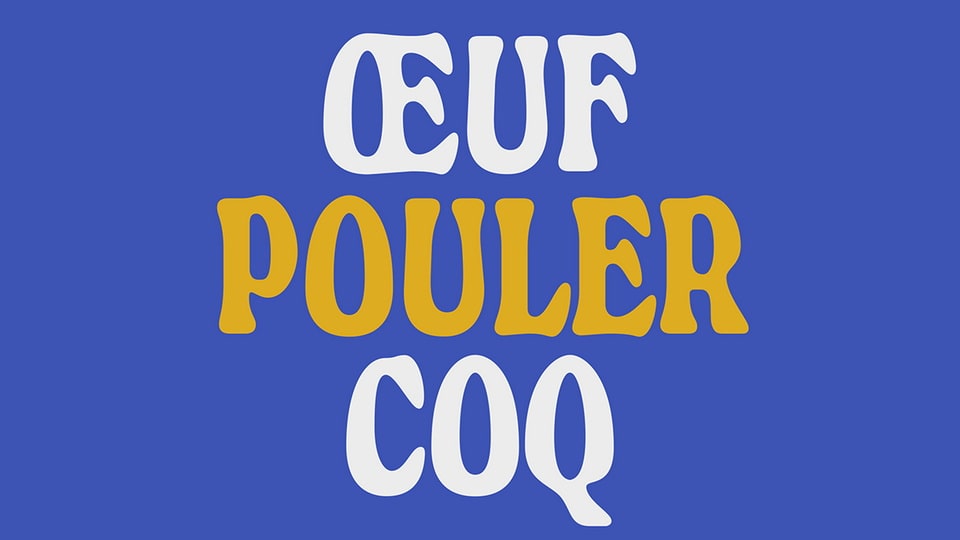
Download Pouler font, an all-caps display typeface inspired by French rurality and local slang. Influenced by Windsor Condensed and Cooper Black, Pouler is organic, playful and juicy!
Designer: Alexandre Créquer